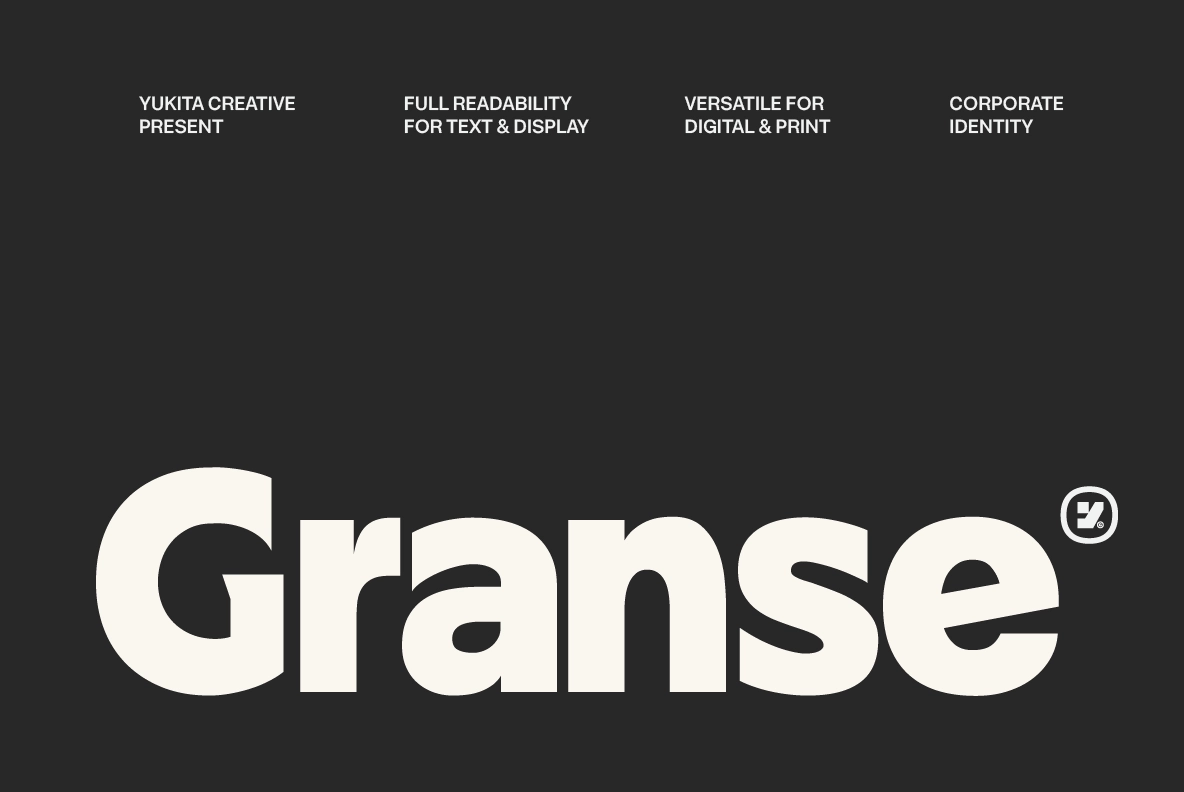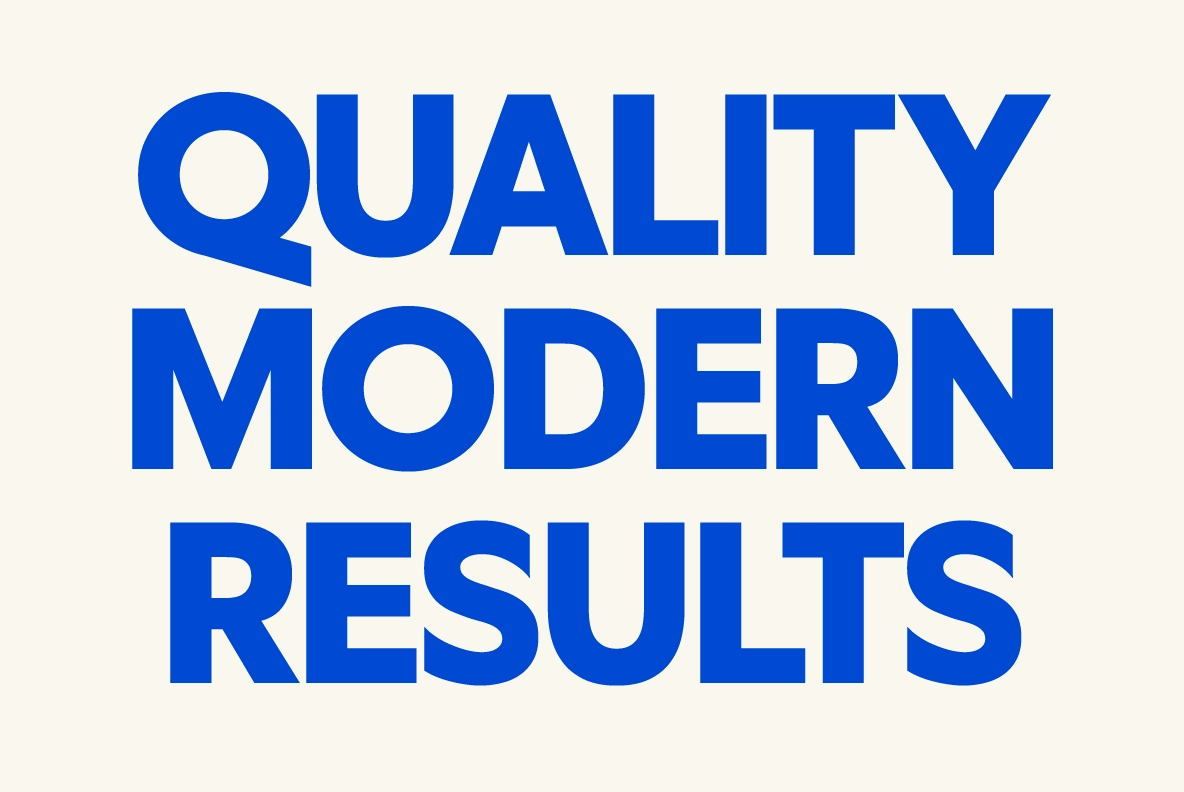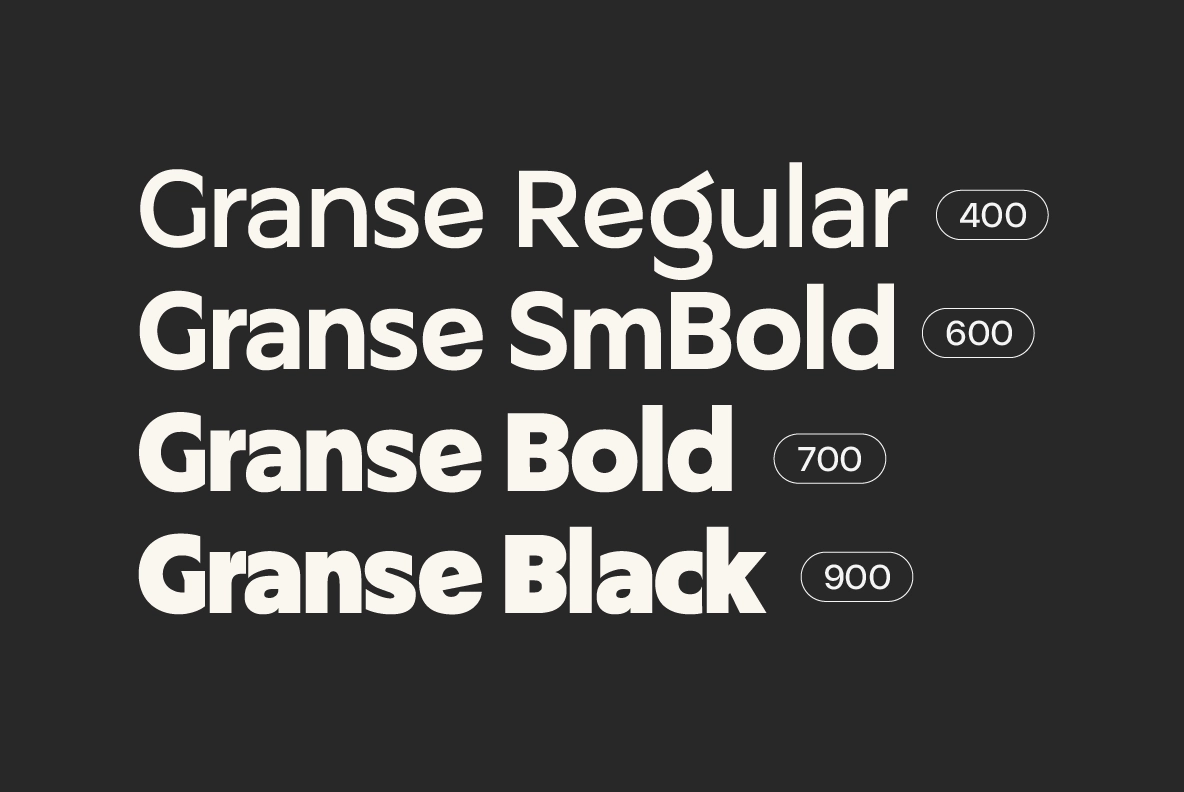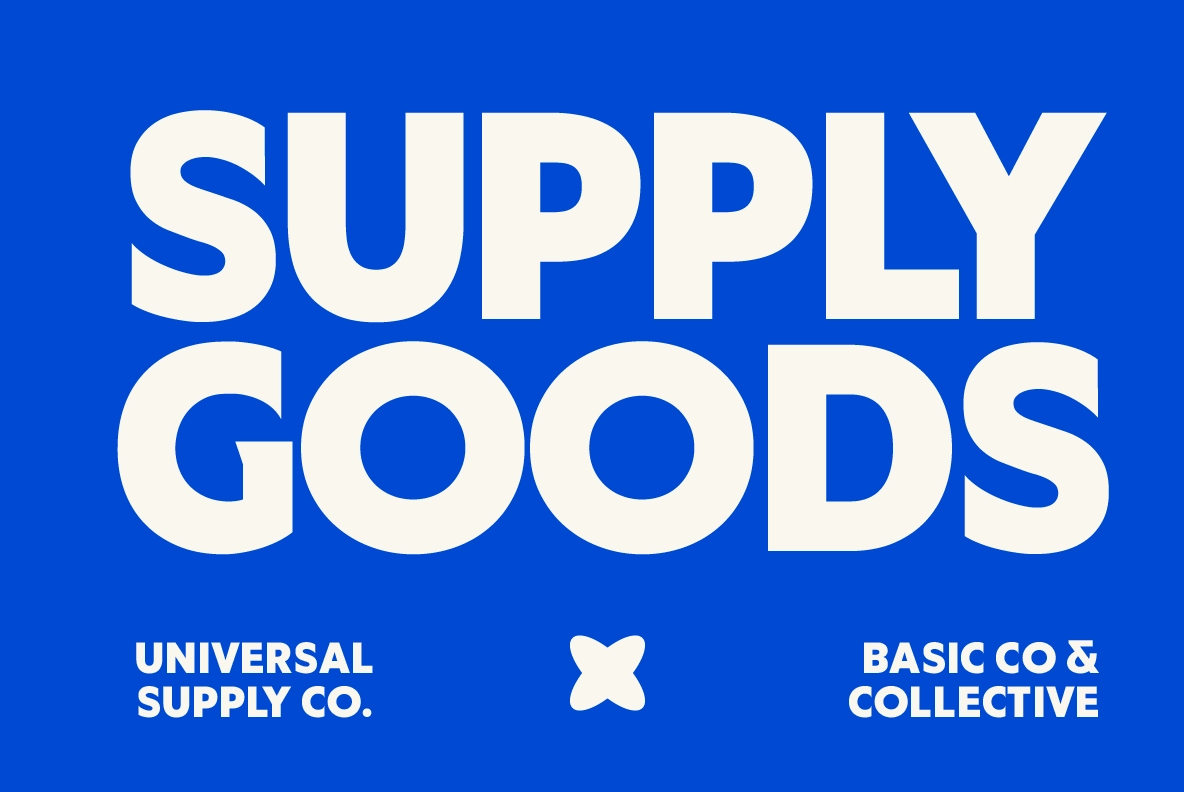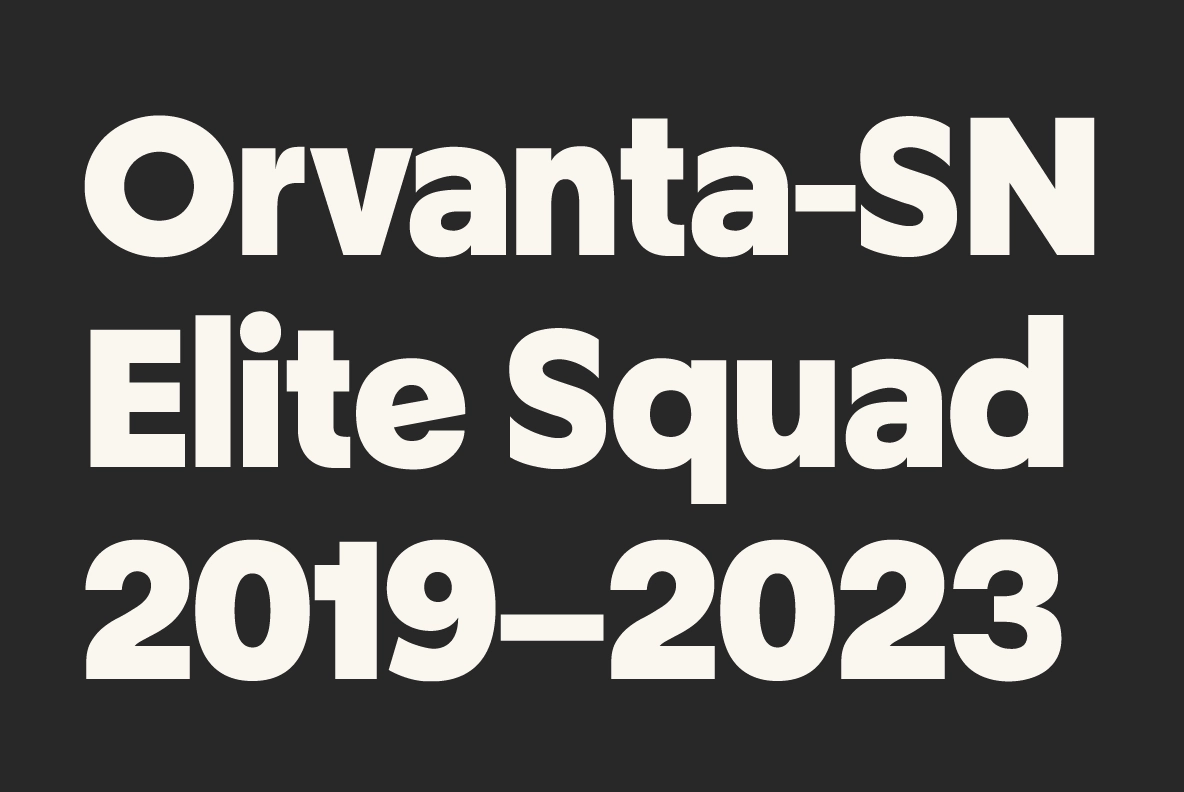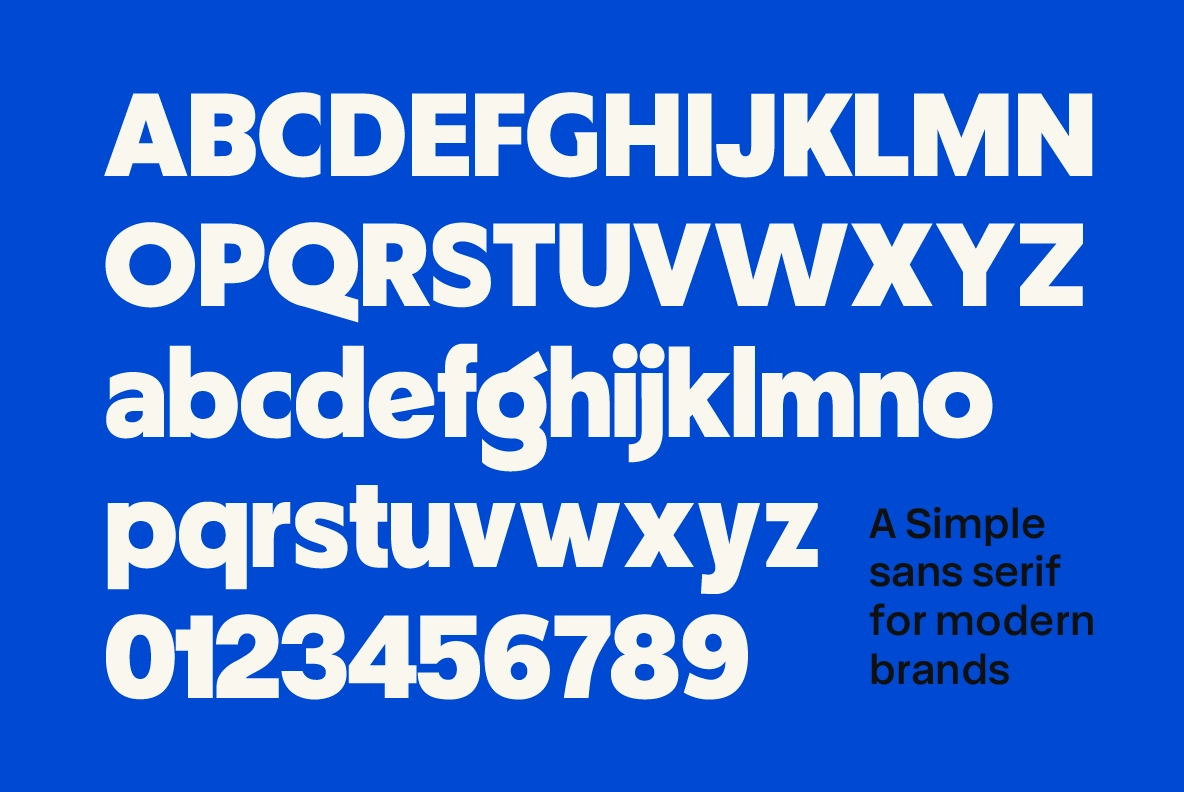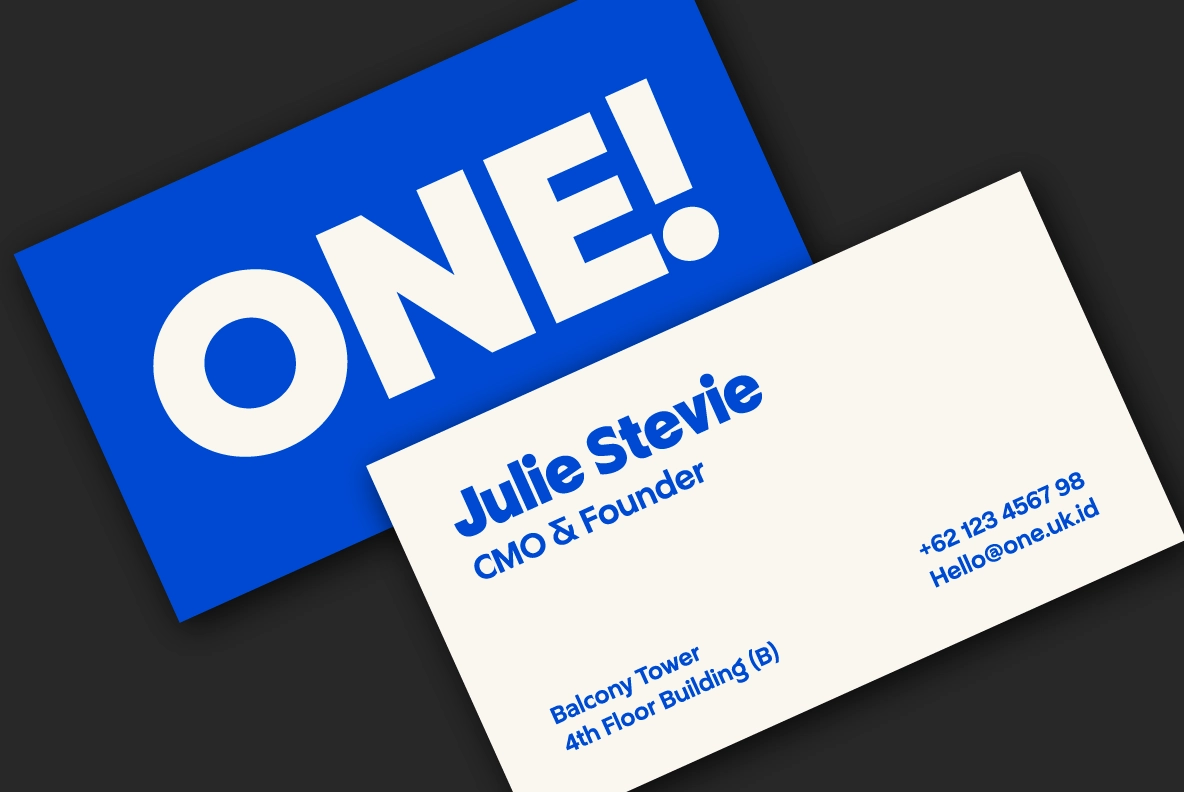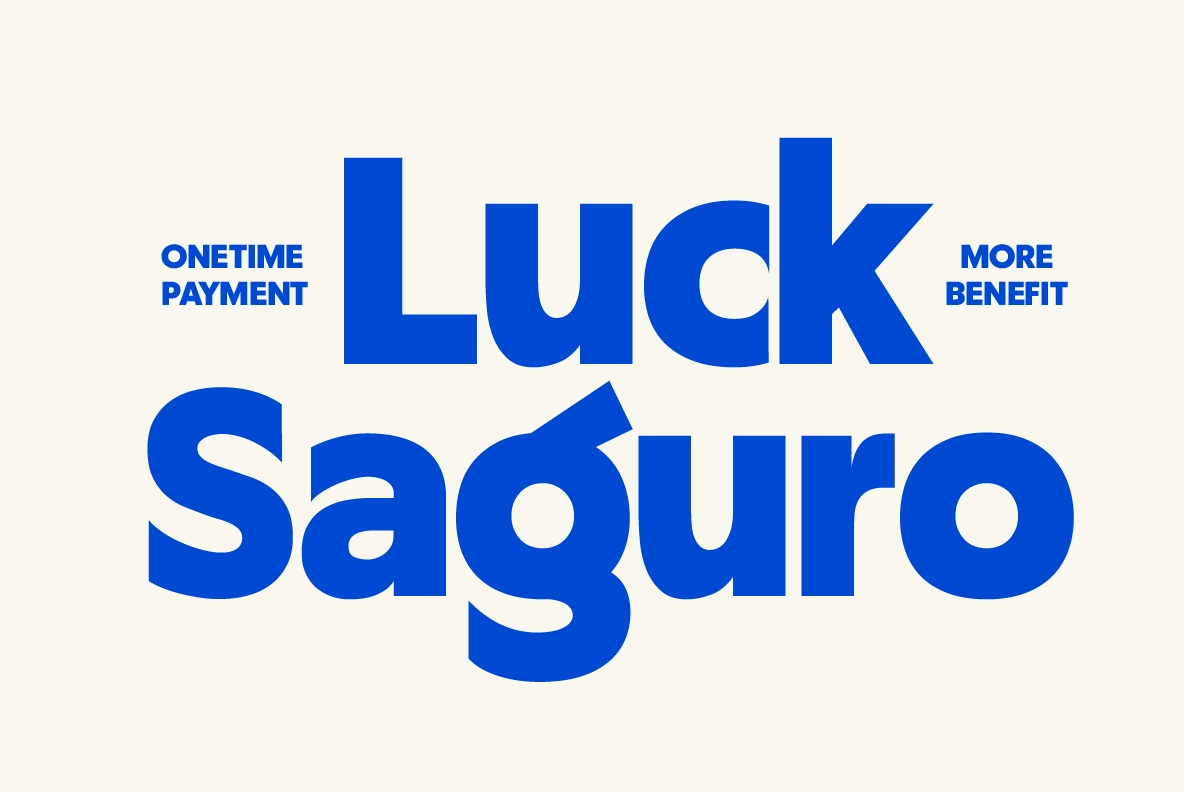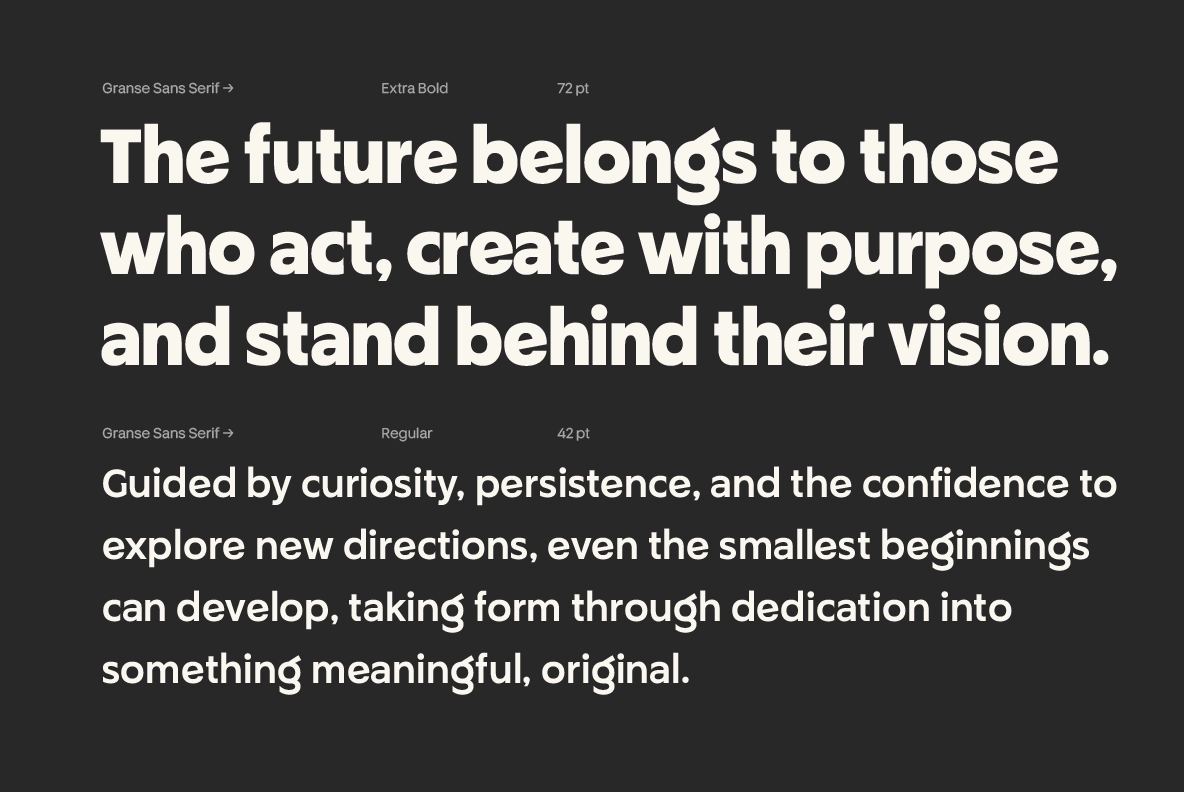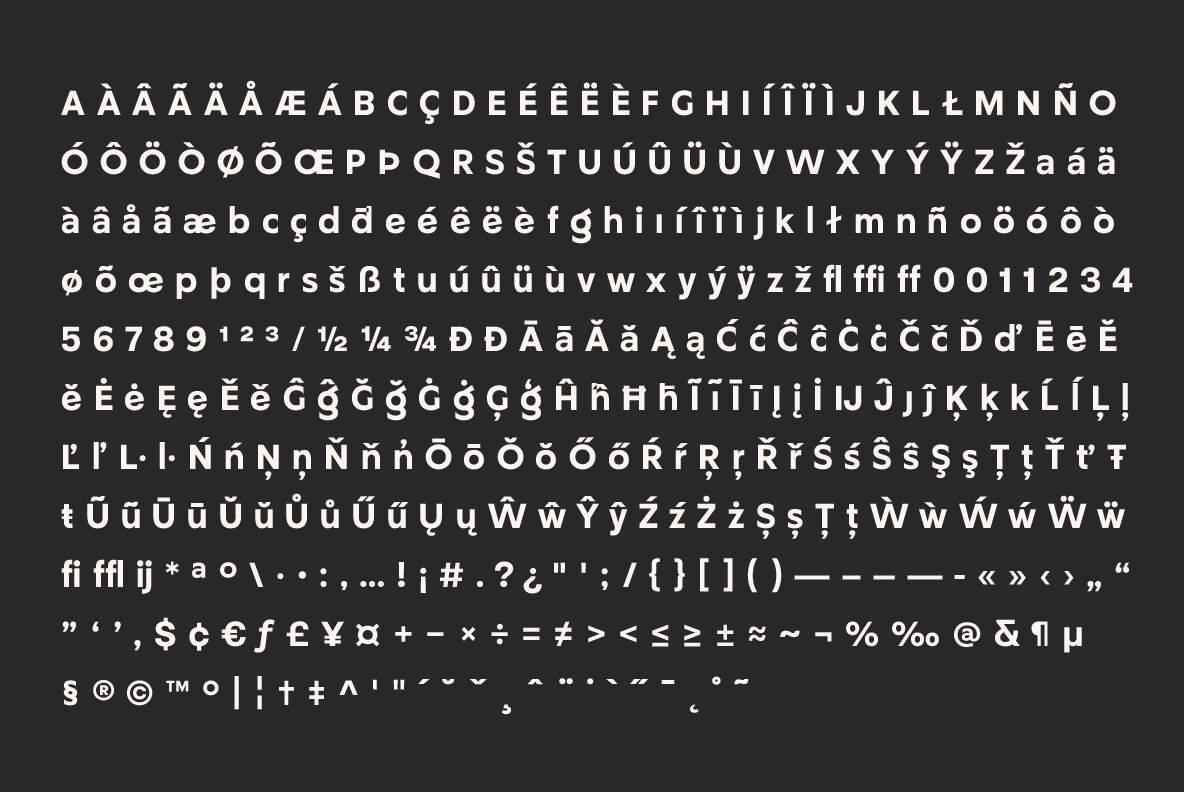
Granse - Modern Sans Serif Font
This sans serif font is clean, heavy, and direct, with broad letterforms, smooth curves, and a sturdy rhythm that keeps headlines loud without turning messy. Its simple geometry gives brand systems a sharp, confident voice across both text and display use.
Granse works well for corporate identities, startup branding, tech products, editorial headlines, website headers, app interfaces, packaging, campaign posters, signage, pitch decks, social media graphics, merch, and more. The weight range supports practical hierarchy, from clear body copy to extra-bold statement typography.
- 4 weights: Regular, SemiBold, Bold, Black
- Ligatures